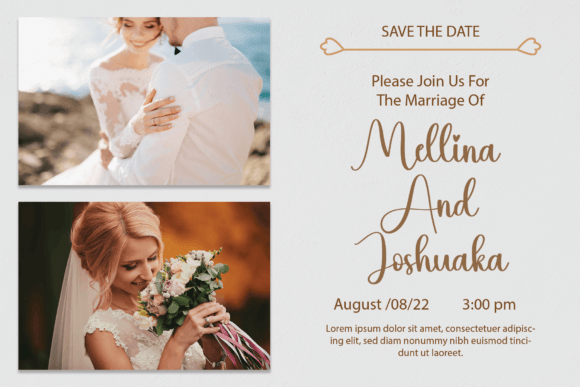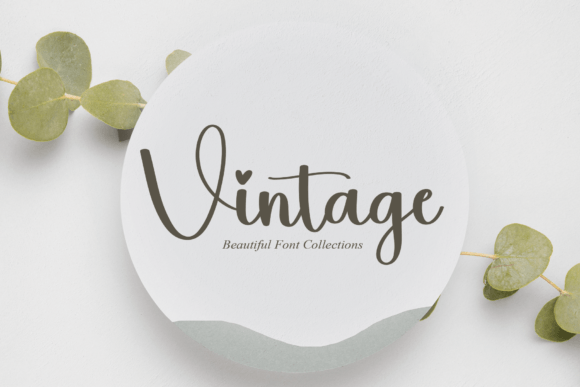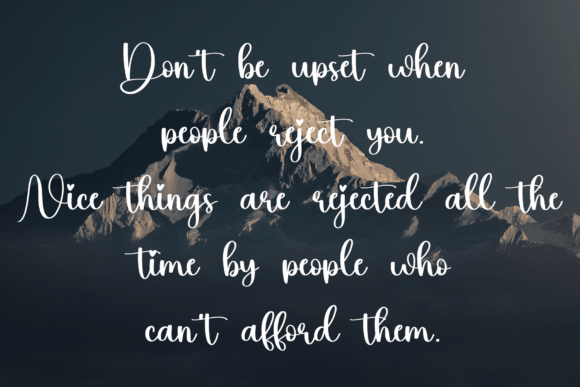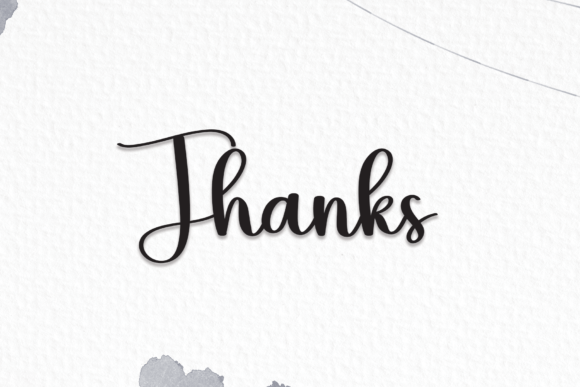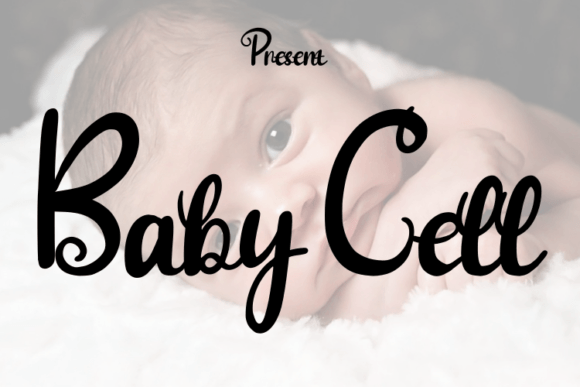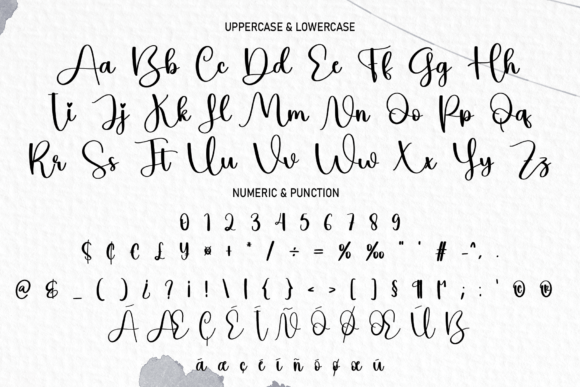
Advice Font
About Advice Font
“Advice” is a font that embodies romance and sweetness, designed in a calligraphic style where characters gracefully dance along the baseline. Its charm lies in its casual yet elegant touch, making it a perfect choice for projects that aim to convey a sense of romance, warmth, and sophistication.
**Romantic Elegance**: “Advice” captures the essence of romance with its delicate and flowing characters. The way the letters dance along the baseline adds a romantic flair, making it an ideal choice for wedding invitations, love letters, or any design that seeks to evoke emotions of love and affection.
**Sweet and Graceful**: The font’s sweet and graceful demeanor adds a touch of charm to any project. Its soft curves and fluid lines create a harmonious flow, making it visually pleasing and delightful to the eye. Whether used for greeting cards, romantic quotes, or special announcements, “Advice” infuses sweetness and grace into the text.
**Casual Sophistication**: Despite its casual appearance, “Advice” maintains an underlying sophistication. The balance between casual and elegant elements makes it versatile, suitable for both formal and informal occasions. This flexibility allows it to be used in a wide range of design applications without compromising its romantic charm.
**Emotional Connection**: “Advice” establishes an emotional connection with the reader through its romantic and sweet aesthetics. The font’s design elicits feelings of tenderness and affection, making it an excellent choice for expressing heartfelt sentiments in various creative projects.
In summary, “Advice” is more than just a typeface; it’s a romantic storyteller. Its dancing characters and casual elegance create a unique atmosphere of love and sweetness. Whether used in wedding materials, love notes, or any design requiring a touch of romance, “Advice” effortlessly conveys emotions, leaving a lasting impression on those who experience it.